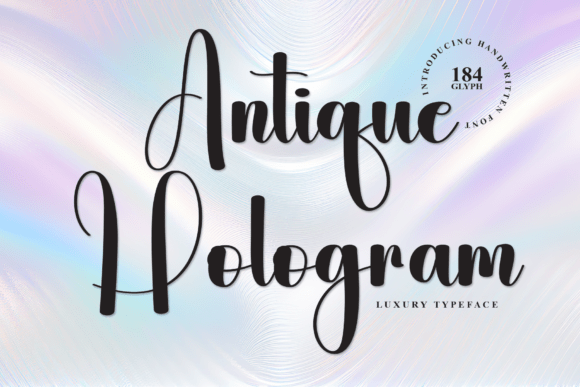
The Sweet Charm of Antique Hologram Font
Have you ever been in the middle of a design project, and suddenly, you just can’t seem to find the right font? I recall a particularly frustrating moment when I was working on a wedding invitation design. My client wanted something elegant yet playful, but every font I tried seemed to fall flat. That’s when I stumbled upon the Antique Hologram Font, and it completely transformed my design. In this article, we’ll dive into the charm of this unique font, its features, and how to make the most of it in your creative pursuits.
A Personal Review of Antique Hologram Font
- ✨ The warm and charming handwritten display font exudes sweetness and friendliness, making it perfect for elegant wedding invitations, heartfelt cards, and more.
- ✅ Its adorable and lively nature adds a unique, playful charm to any design.
- 🎉 The font’s versatility allows it to be used for a wide range of creative projects, from digital designs to print materials.
While the Antique Hologram Font is a gem, it’s not without its quirks. Here are a few things to keep in mind:
- 🤔 The font may not be suitable for body text due to its decorative nature. It’s best used for headings, titles, or short phrases.
- ⚠️ Some characters may require manual kerning to achieve optimal spacing.
The Story Behind Antique Hologram Font
The Antique Hologram Font was designed with the intention of capturing the warmth and charm of traditional handwritten scripts. The designer aimed to create a font that would evoke feelings of nostalgia and playfulness, while still being elegant and sophisticated. Through a combination of traditional techniques and modern digital tools, the Antique Hologram Font was brought to life.
Q: What type of projects is Antique Hologram Font best suited for?
A: Antique Hologram Font is ideal for designs that require a touch of elegance and playfulness, such as wedding invitations, greeting cards, and creative projects.
Q: Is Antique Hologram Font suitable for body text?
A: No, Antique Hologram Font is best used for headings, titles, or short phrases due to its decorative nature.